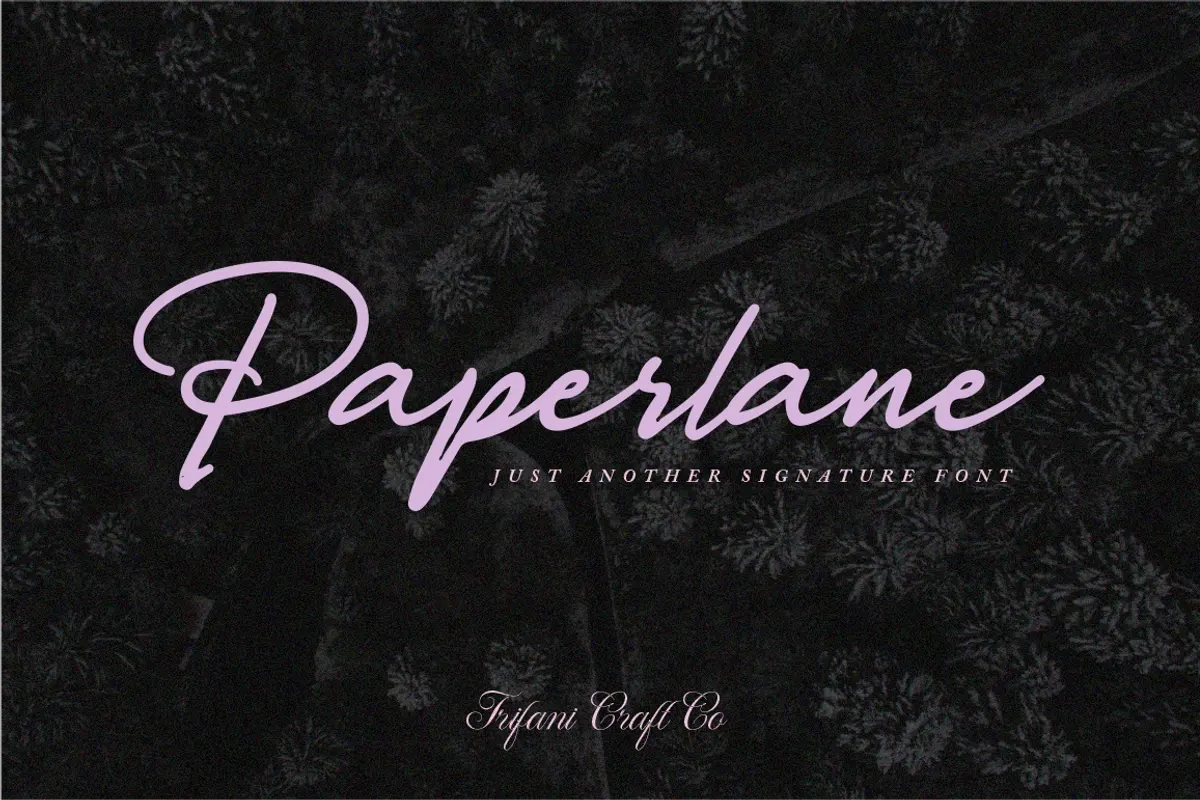
Paperlane - Organic hand-drawn font Free Download
Paperlane - Organic Hand-Drawn Font Free Download
Paperlane - Organic Hand-Drawn Font Free Download is a charming and artistic typeface that brings a natural, handcrafted feel to your designs. With its organic, hand-drawn strokes, Paperlane is perfect for logos, branding, invitations, and creative projects that require a unique, personal touch. Its flowing, imperfect lines add warmth and authenticity to any project, making it ideal for designs that aim to convey a relaxed, artistic vibe.